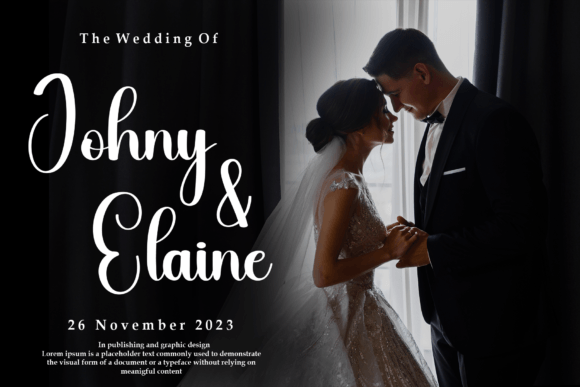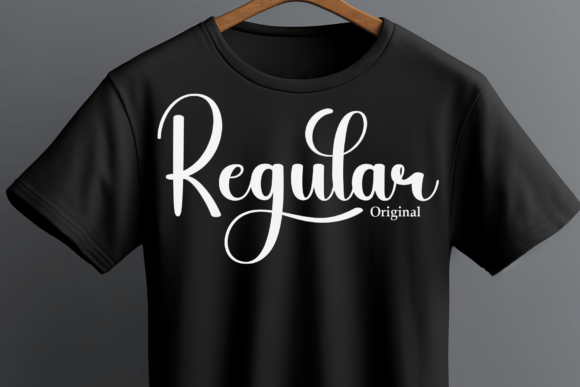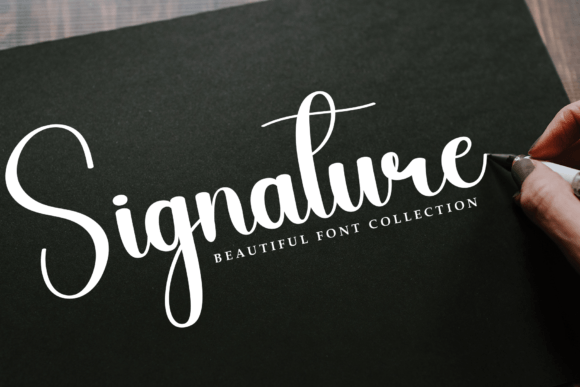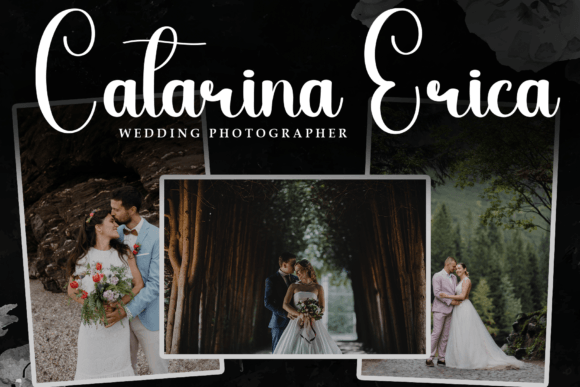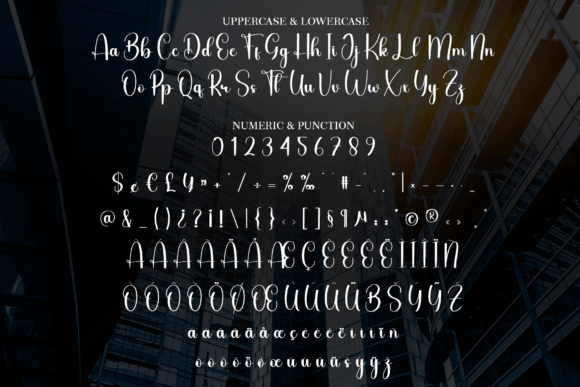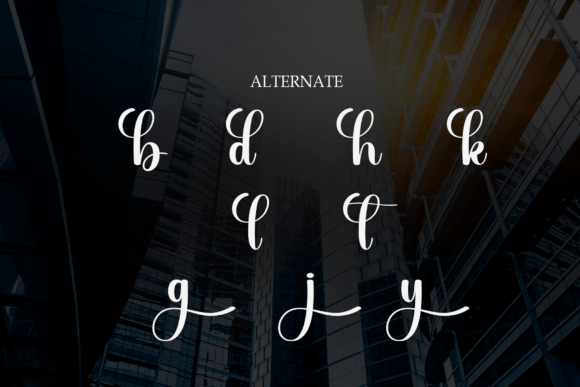
Discover the Elegance of Angles Font: A Timeless Choice for Designers and Crafters
Are you on the hunt for a font that exudes elegance and sophistication? Look no further than Angles Font, a beautiful, flowing handwritten font that is sure to capture your heart. With its incredibly distinct and timeless style, Angles Font is the perfect choice for designers and crafters looking to add a touch of refinement to their projects.
The Characteristics of Angles Font
Angles Font is described by its elegant touch, which sets it apart from other fonts. Its flowing lines and curves create a sense of movement and fluidity, making it perfect for designs that require a touch of sophistication. The font’s unique style is both classic and modern, making it versatile enough to be used in a wide range of projects, from wedding invitations to branding and packaging.
Why Choose Angles Font?
So, why should you choose Angles Font for your next project? Here are just a few reasons:
- Elegant and Sophisticated: Angles Font is the epitome of elegance and sophistication. Its refined style is sure to impress your clients and elevate your designs.
- Versatile: Whether you’re working on a wedding invitation, a branding project, or a craft, Angles Font is versatile enough to be used in a wide range of applications.
- Timeless: Unlike trendy fonts that quickly go out of style, Angles Font is a timeless choice that will remain relevant for years to come.
- Easy to Read: Despite its elegant style, Angles Font is easy to read, making it perfect for body text and headings.
How to Use Angles Font in Your Designs
Angles Font is incredibly easy to use and can be incorporated into your designs in a variety of ways. Here are a few ideas to get you started:
- Wedding Invitations: Angles Font is perfect for wedding invitations, adding a touch of elegance and sophistication to your designs.
- Branding and Packaging: Use Angles Font to create stunning branding and packaging designs that will set your clients apart from the competition.
- Crafts: Angles Font is also perfect for crafters, adding a touch of elegance to handmade cards, gift tags, and other paper crafts.
Tips for Getting the Most Out of Angles Font
To get the most out of Angles Font, here are a few tips:
- Experiment with Different Sizes: Angles Font looks great in a variety of sizes, so don’t be afraid to experiment to find the perfect size for your design.
- Pair with Other Fonts: Angles Font pairs well with a variety of other fonts, so try pairing it with a bold font for headings or a sans-serif font for body text.
- Use it for Headings and Titles: Angles Font is perfect for headings and titles, adding a touch of elegance and sophistication to your designs.
In conclusion, Angles Font is a beautiful, flowing handwritten font that is sure to capture your heart. With its elegant touch, incredibly distinct and timeless style, and versatility, it’s the perfect choice for designers and crafters looking to add a touch of refinement to their projects. Whether you’re working on a wedding invitation, a branding project, or a craft, Angles Font is sure to impress. So why wait? Fall in love with Angles Font today and start creating spectacular designs!